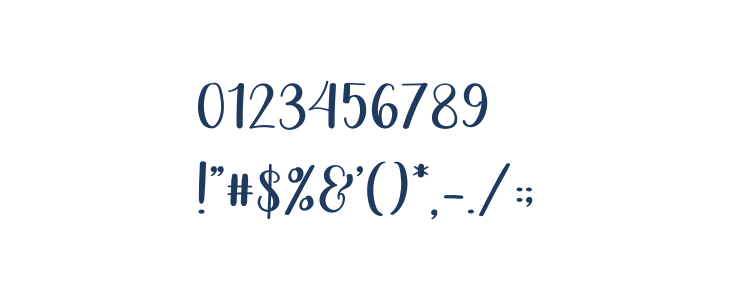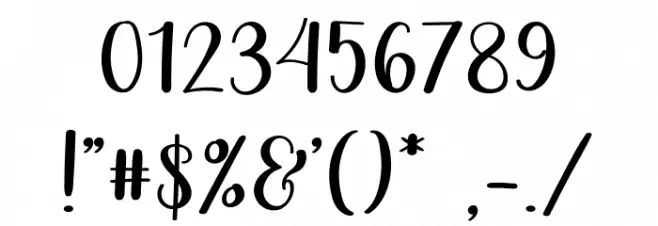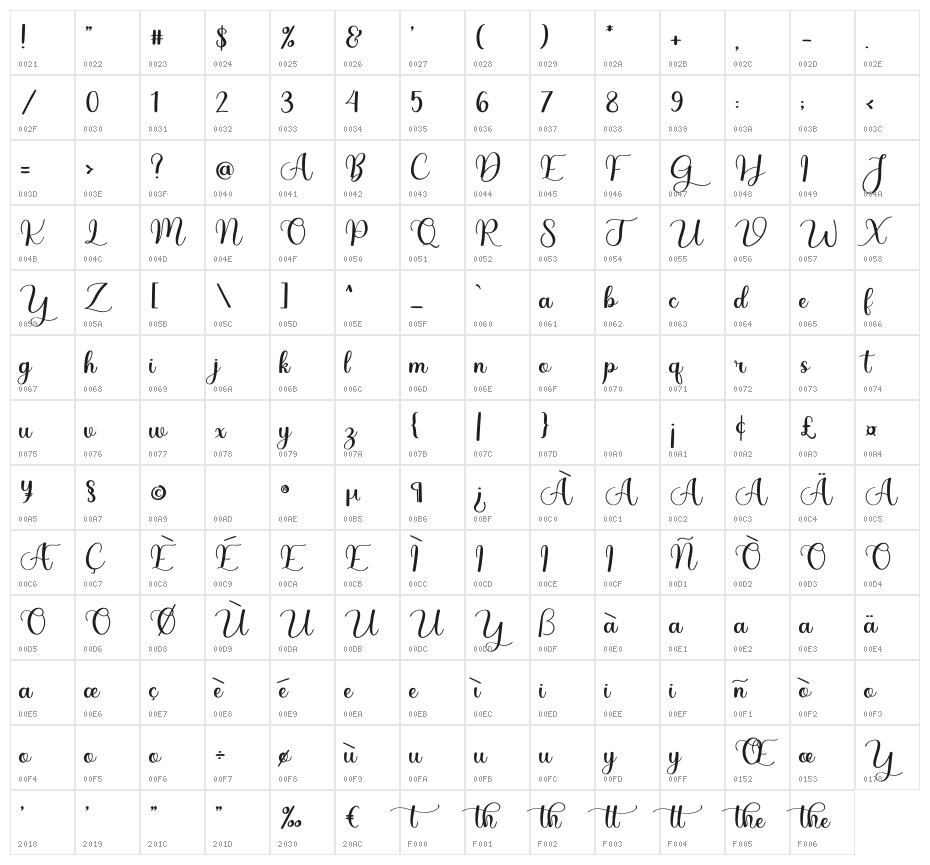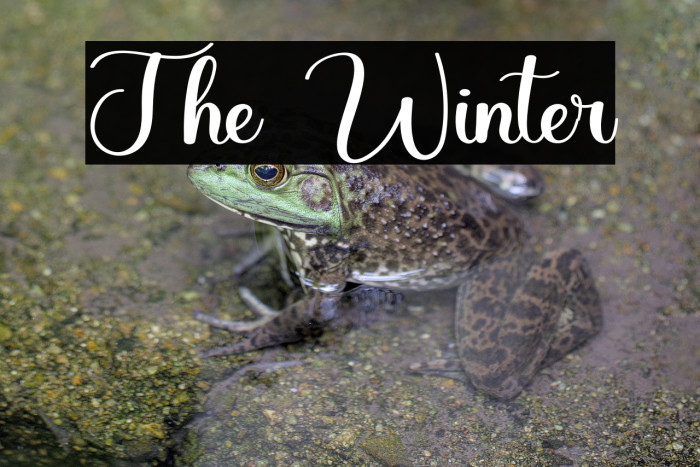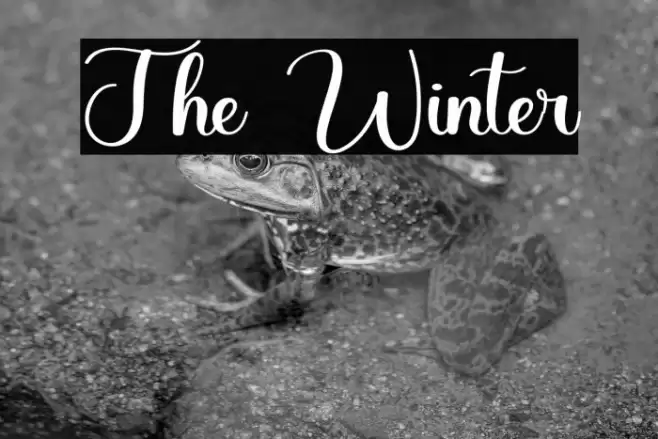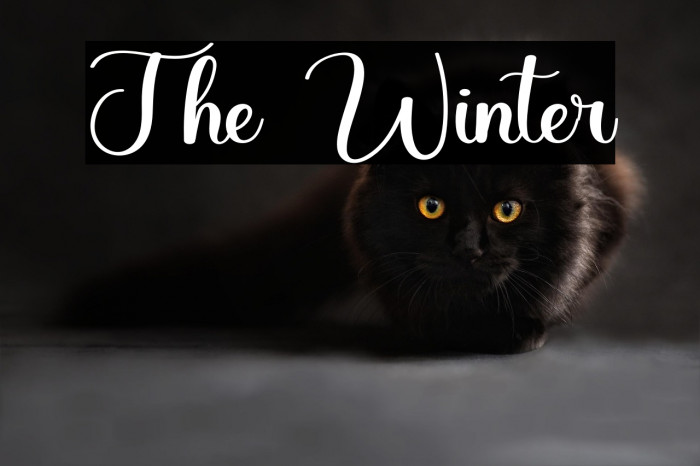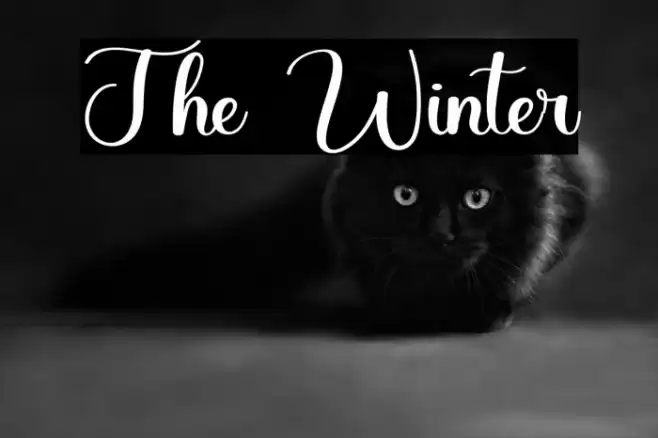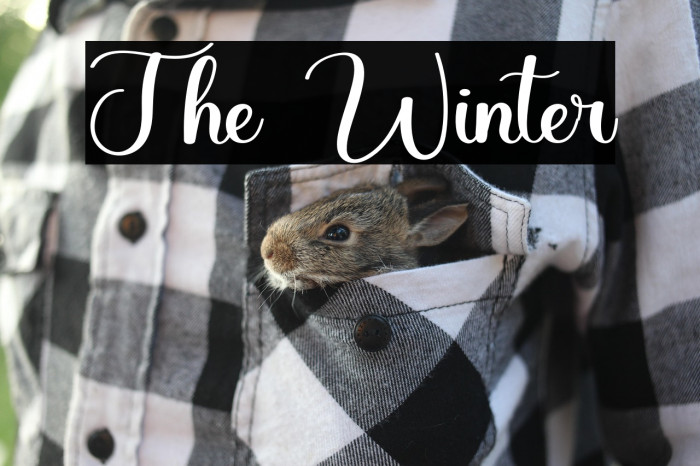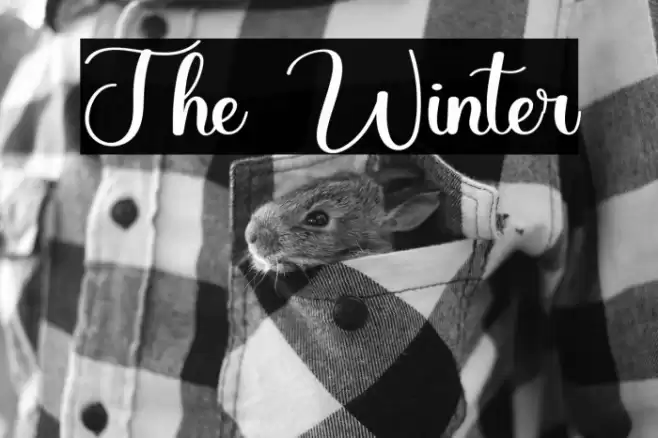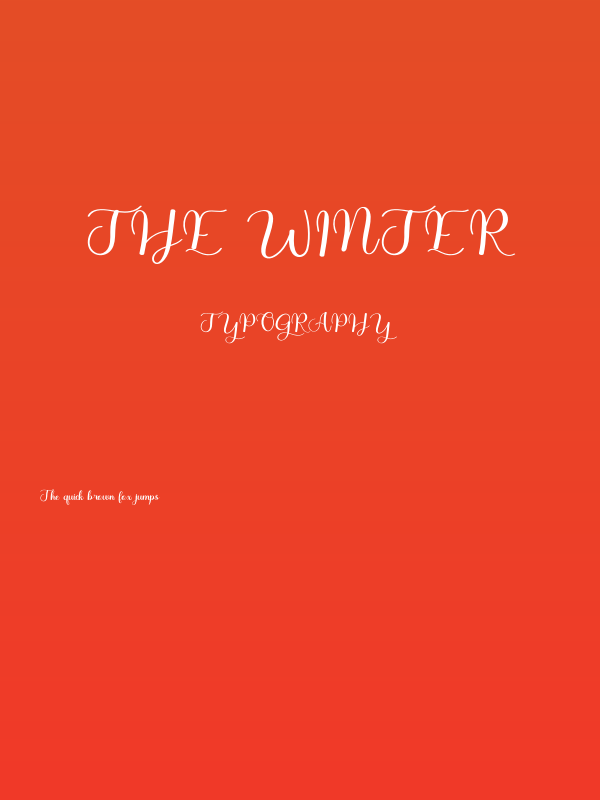
The Winter Font
The Winter Description
This font features an elegant and flowing script style, characterized by its smooth, cursive letterforms that exude a sense of sophistication and grace. The uppercase letters are particularly ornate, with sweeping curves and flourishes that add a touch of drama. The lowercase letters maintain a consistent flow, making it suitable for creating seamless text. The numerals are clear and legible, complementing the overall style. Special characters are thoughtfully designed, maintaining the font's cohesive aesthetic. This font is ideal for projects that require a touch of elegance and refinement.
| Overall Style | Elegant, Sophisticated |
| Use Case | Headlines, Invitations, Branding |
| Proposed Projects | Wedding invitations, luxury branding, greeting cards, and elegant packaging designs. |